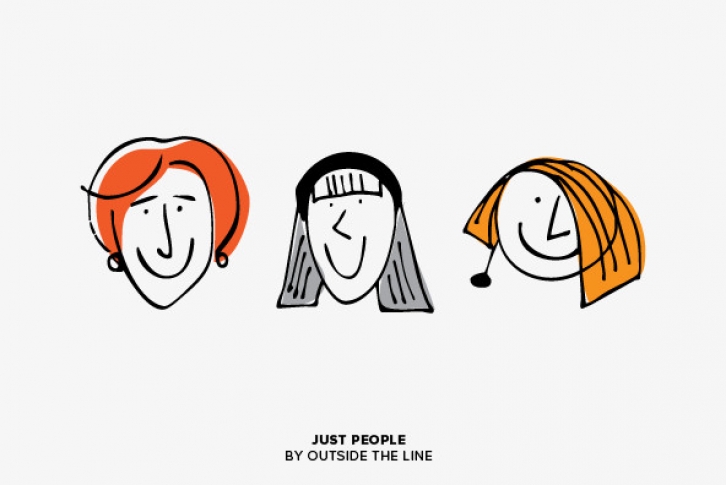
Just People is a dingbat font design that contains 36 men, women, children, babies, grandpas, grandmas, teens, this font has them all... and with lots of personality!